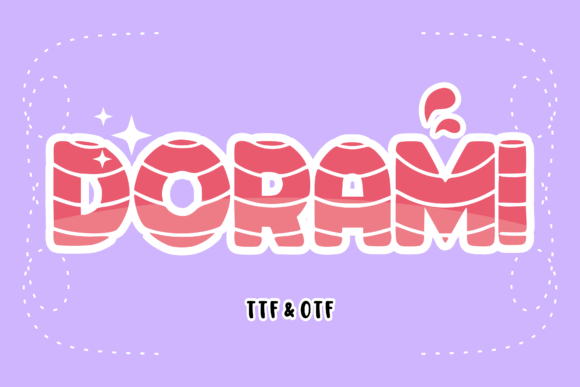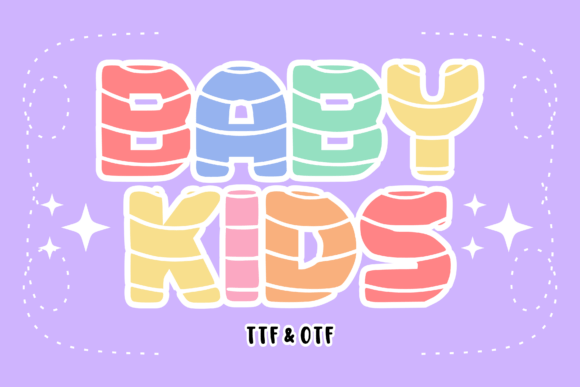
Introduction to Juice Berry Font
Have you ever stumbled upon a design that just makes you smile? Maybe it’s a bright color palette, or a quirky illustration. For me, it’s often the font that makes a project stand out. Recently, I discovered the Juice Berry Font, and I’m hooked. Its playful, rounded characters have a way of adding a touch of whimsy to any design.
As designers, we’re always on the lookout for high-quality design resources that can elevate our creative projects. The Juice Berry Font is a fantastic addition to any design arsenal, offering a cheerful and energetic feel that’s perfect for a wide range of applications. Whether you’re working on a fun children’s project or a bold brand identity, this font is sure to bring a smile to your face.
Key Features of Juice Berry Font
- High-quality design resource suitable for creative projects
- Unique, colorful design with a transparent background, allowing for versatile use
- Designed with a playful, modern aesthetic, making it perfect for branding and advertising
Honest Review: Juice Berry Font
I recently stumbled upon the Juice Berry Font while searching for a design resource to add some fun and whimsy to a creative project. At first glance, I was drawn in by its bright and cheerful vibe.
- ✨ Unique and playful design: The Juice Berry Font is perfect for adding a touch of personality to your project.
- ✨ High-quality graphics: The font is crisp and clear, making it perfect for digital use.
- ✨ Transparent background: This feature makes it easy to place the font over any background image.
- ⚠️ Limited character set: While the font is perfect for short text, it may not be suitable for longer pieces of writing.
- ⚠️ May not be ideal for professional use: While it’s a great choice for creative projects, it may not be suitable for more formal or professional applications.
Overall, I think the Juice Berry Font is a great addition to any designer’s toolkit. It’s perfect for adding a touch of fun and whimsy to your creative project, and it’s a great choice for designers on a budget.
Tips for Getting the Most Out of Juice Berry Font
For a transparent background, use the Juice Berry Font on a layer with a transparent background. You can also use it in combination with other design elements, such as images and graphics, to create a unique and eye-catching design.
The Juice Berry Font is ideal for use in social media graphics, blog posts, and other digital content. It’s also perfect for creating invitations, flyers, and other print materials that require a touch of creativity.